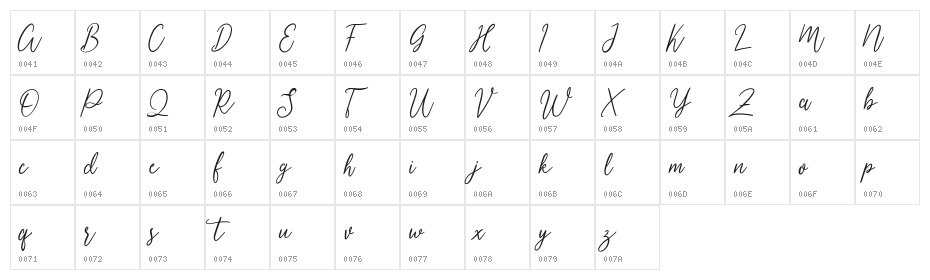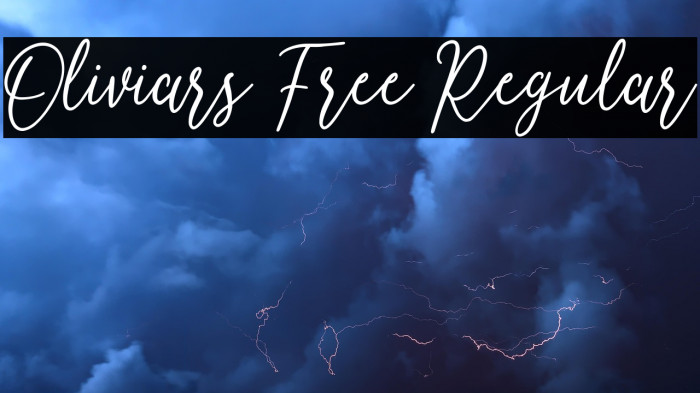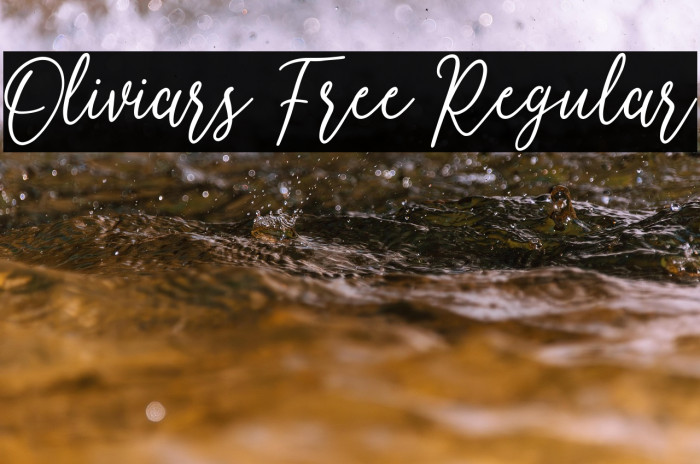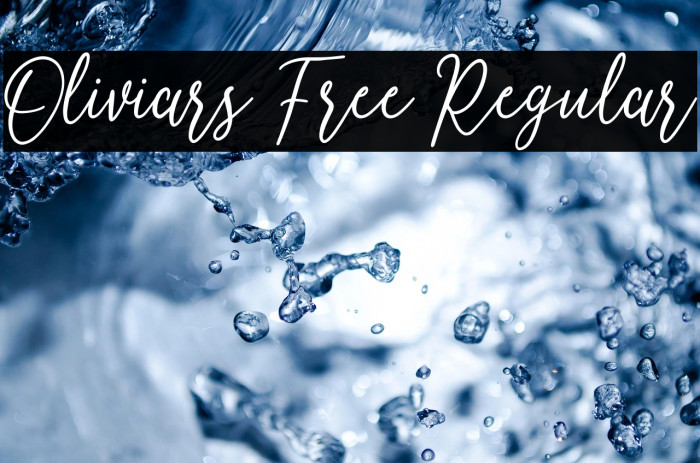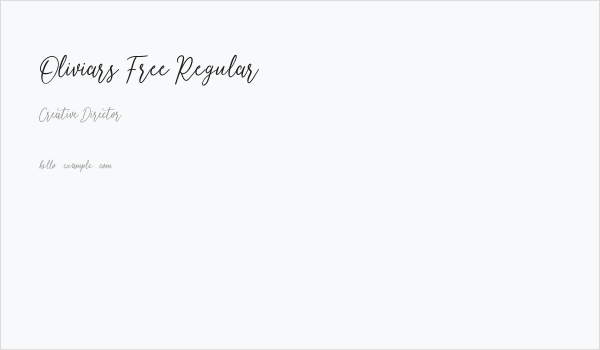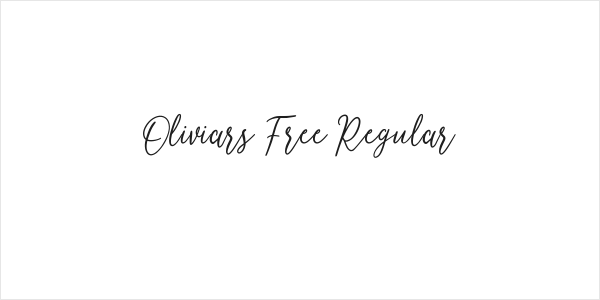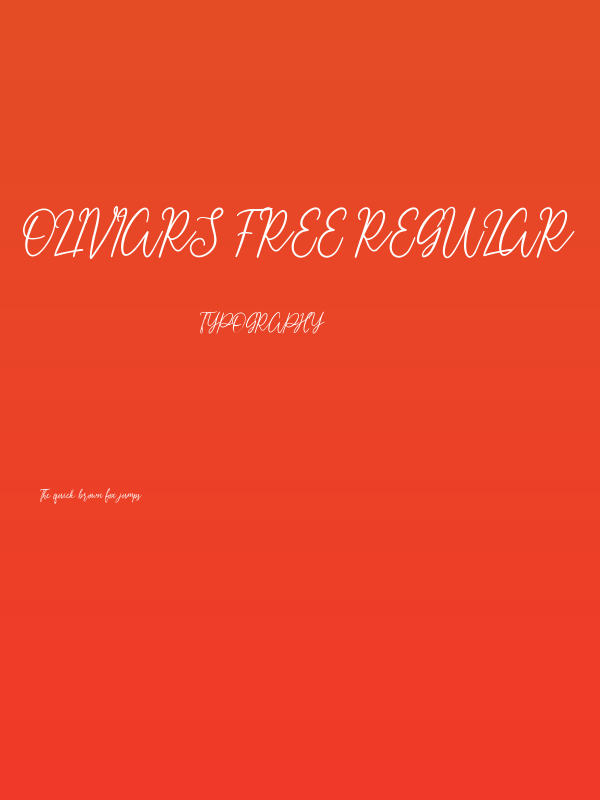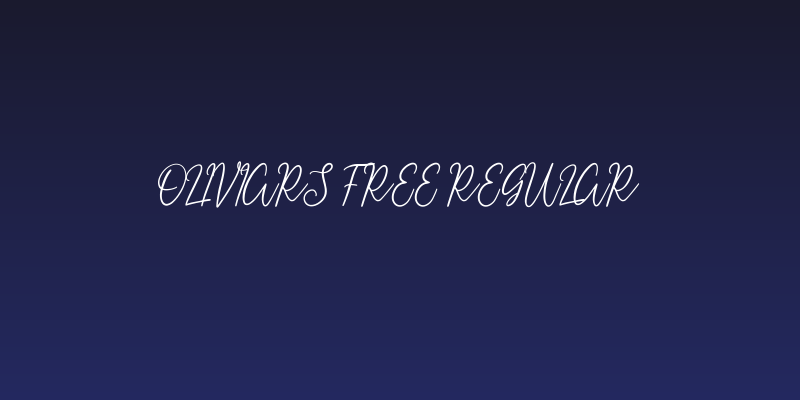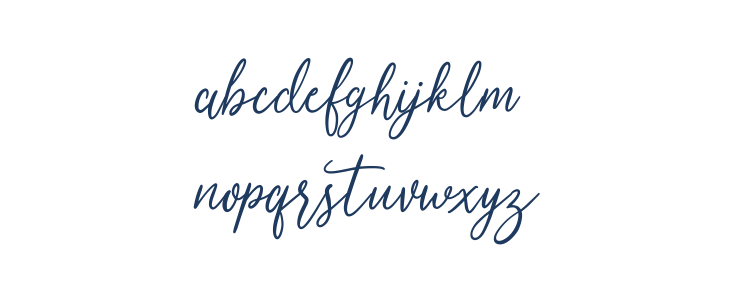
Oliviars Free Regular Font
Oliviars Free Regular Description
This font features an elegant and flowing script style, characterized by its smooth, cursive strokes and graceful curves. The uppercase letters are bold and sweeping, with a distinct flair that adds a touch of sophistication. The lowercase letters maintain a consistent flow, creating a harmonious and connected appearance. The font's design is both stylish and legible, making it suitable for a variety of uses. Its handwritten aesthetic gives it a personal and inviting feel, perfect for projects that require a touch of elegance and charm.
| Overall Style | Elegant, Handwritten |
| Proposed Projects | Ideal for wedding invitations, greeting cards, branding, and elegant logo designs. |